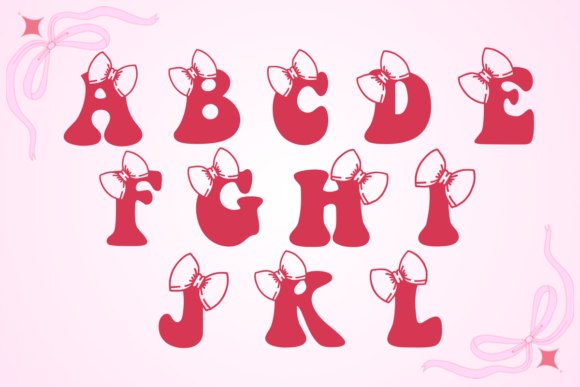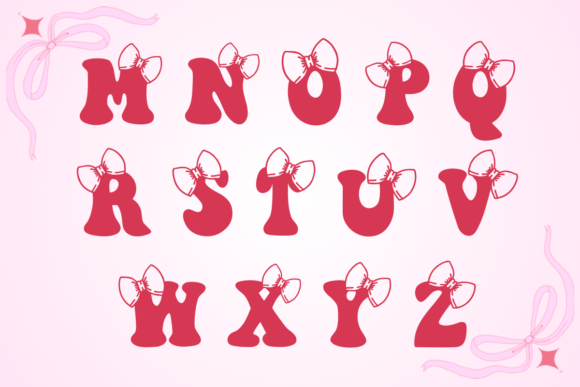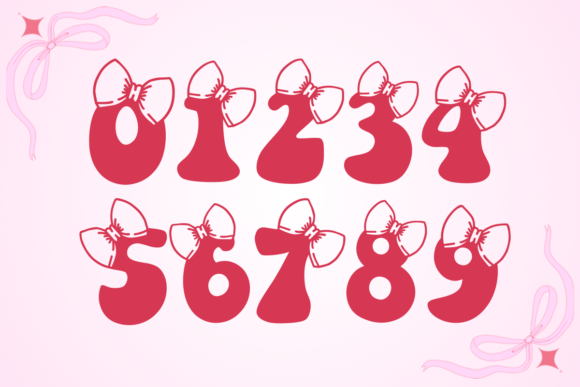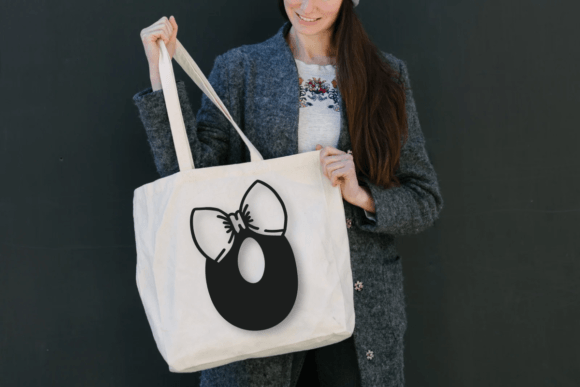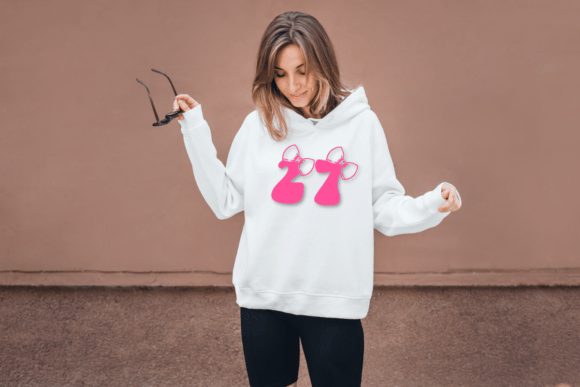
Introduction to Groovy Bow Font
Groovy Bow is a fun and decorative font where each letter has a cute bow design.
It’s playful and stylish, perfect for adding a charming touch to invitations, posters, or any creative project The bows make the letters stand out and look extra special.
Key Features of Groovy Bow Font